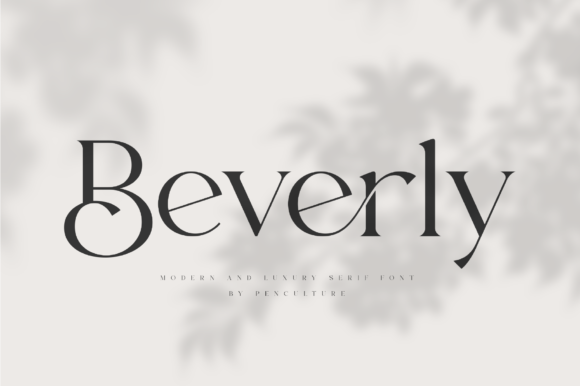
Introducing Beverly Font, the epitome of modern luxury in the world of serif fonts. Created by the talented designers at Pen Culture, Beverly is a captivating typeface that will undoubtedly elevate your design projects to new heights. With its elegant stylistic alternates and ligatures, this font is not just your average serif - it's the best font for UX design, guaranteed to leave a lasting impression on your audience.
Looking to make a statement with your branding? Beverly is the answer. Its unique and sophisticated design exudes class and refinement, instantly capturing attention and conveying a sense of professionalism. Whether you're creating a logo, designing a poster, or working on a magazine layout, this font will effortlessly enhance the visual appeal of your creations.
What sets Beverly apart is its versatility. It seamlessly adapts to any purpose, making it suitable for a wide range of design projects. Its natural and elegant shape provides a solid foundation for customization, allowing you to infuse your own creativity and personal touch. With Beverly, the possibilities are endless, and your imagination is the only limit.
But what truly makes Beverly Font stand out is its ability to evoke emotions. Its timeless beauty and attention to detail create a sense of nostalgia and sophistication, appealing to the senses of your audience. Imagine the feeling of joy and excitement as you unveil your designs, beautifully crafted using this font. The impact will be undeniable, leaving a lasting impression on those who lay eyes on your creations.
Choosing the right font is crucial in capturing the essence of your message, and Beverly Font delivers on all fronts. It combines modernity with elegance, professionalism with creativity, and functionality with beauty. It's a font that speaks volumes without saying a word, effortlessly conveying the purpose and personality of your brand.